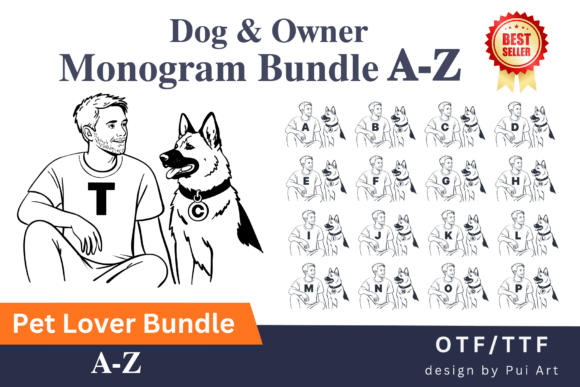
Introduction to Dog and Owner Monogram Font
Dog & Owner Monogram Bundle A-Z is a heartwarming and unique font collection designed for pet lovers.
Featuring adorable line art of dog and owner with personalized initials, this bundle is perfect for custom gifts, t-shirts, mugs, stickers, and more Ideal for Cricut, Silhouette, and DIY projects, this high-quality A-Z monogram set adds a personal and emotional touch to every design.
Key Features of Dog and Owner Monogram Font
Why Choose Dog and Owner Monogram Font?
Dog and Owner Monogram Font offers exceptional quality and versatility, making it a valuable addition to your design toolkit. Whether you’re creating for personal projects or commercial use, Dog and Owner Monogram Font delivers professional results.